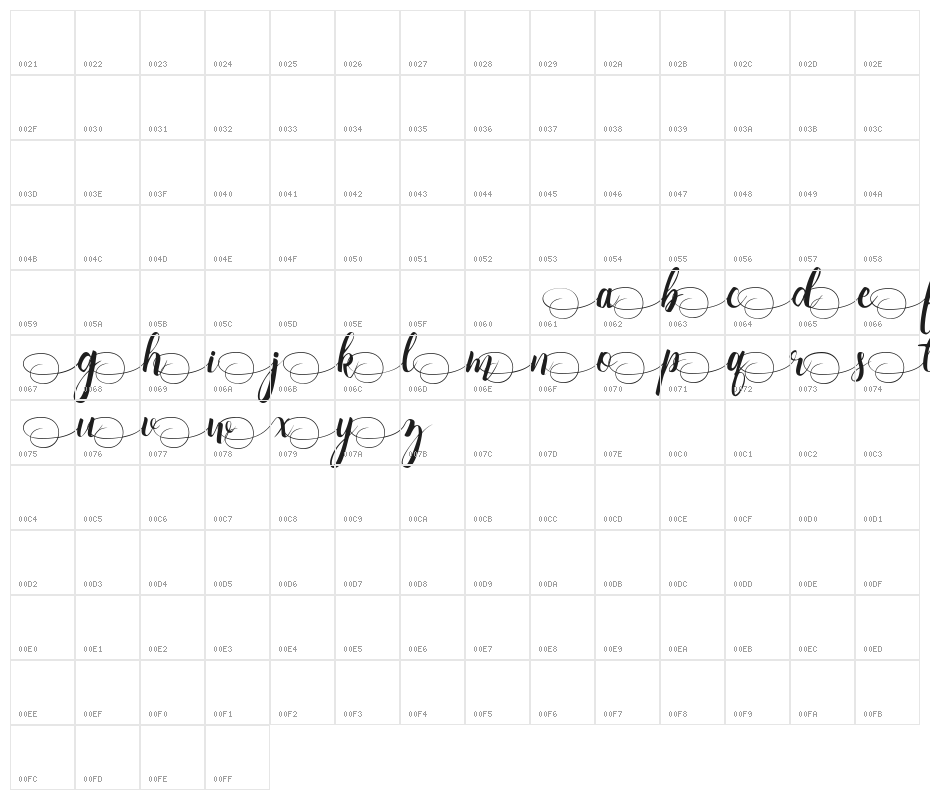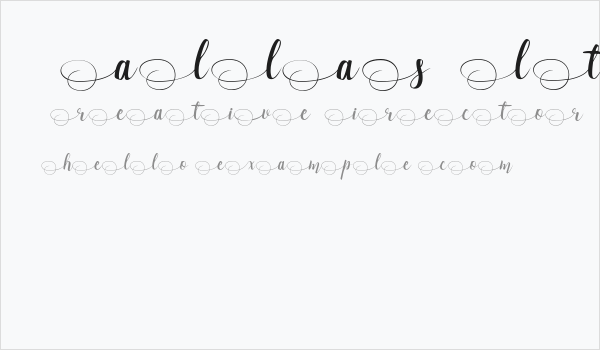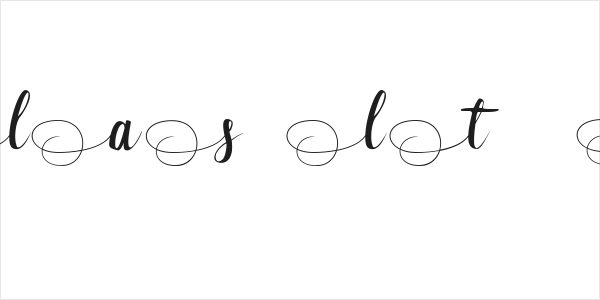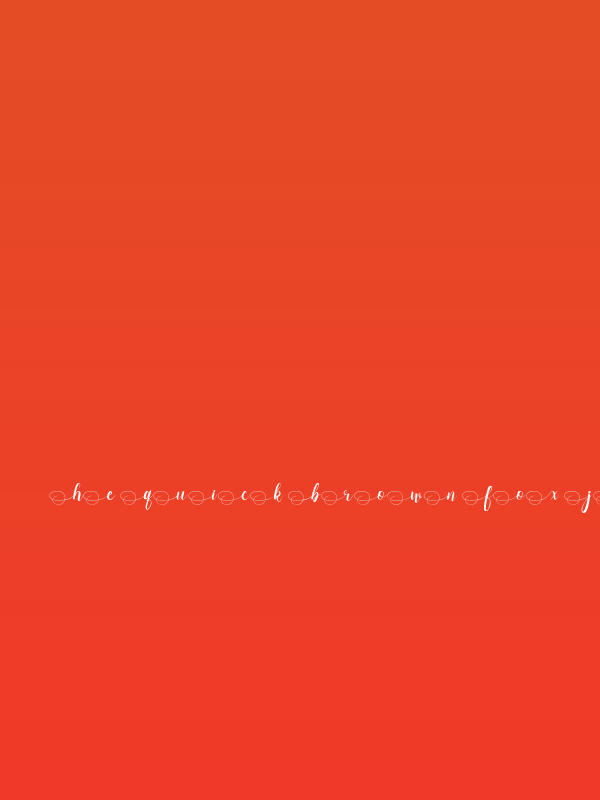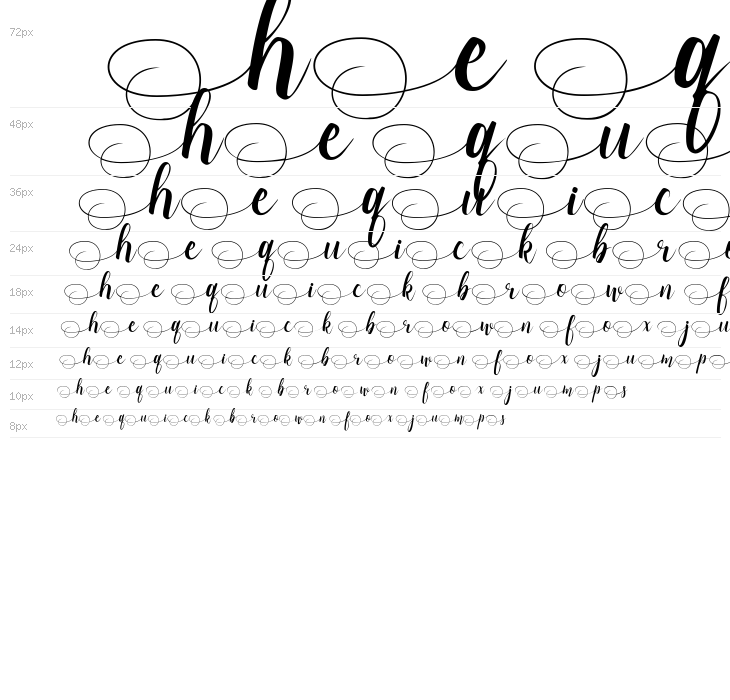
Sallas Alt 1 Demo Font
Sallas Alt 1 Demo Description
This font exudes elegance and sophistication with its flowing, cursive style. Each letter is adorned with intricate swirls and loops, giving it a decorative and artistic flair. The characters are connected in a seamless manner, enhancing the script's fluidity and grace. The overall appearance is reminiscent of classic calligraphy, making it ideal for projects that require a touch of refinement and beauty. The font's delicate strokes and ornamental details make it stand out, perfect for creating visually appealing designs.
| Proposed Projects | Ideal for wedding invitations, greeting cards, branding, and elegant logo designs. |